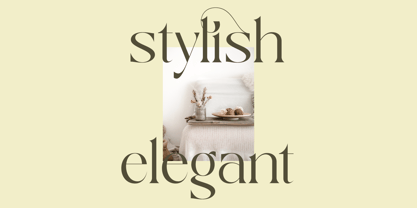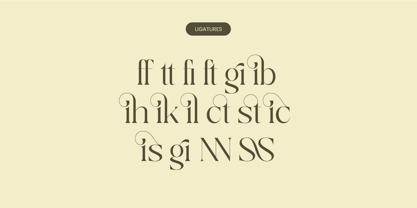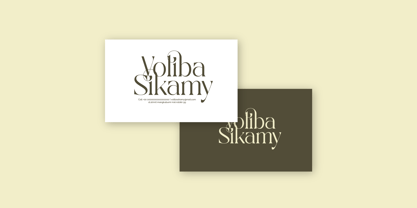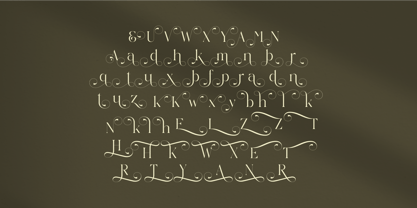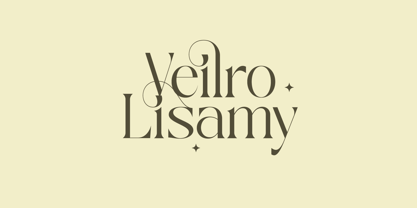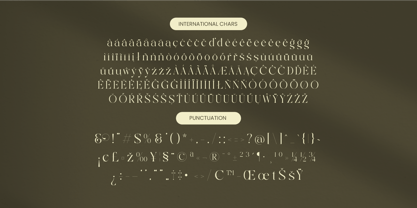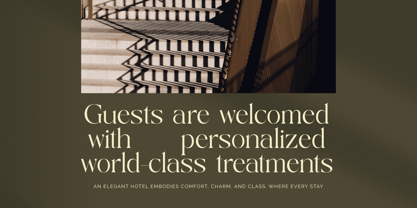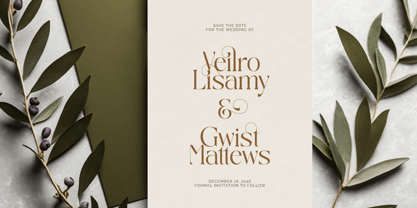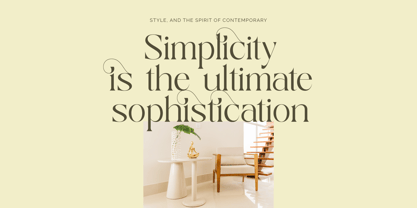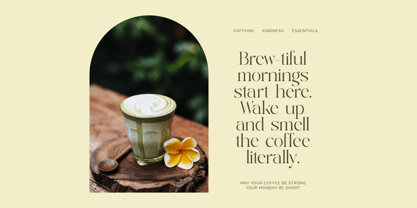
The Qaisar Font Family was designed by Heru Utama Putra and published by Timelesstype Studio. Qaisar contains 2 styles and family package options.
Qaisar - Elegant Serif Font , from Timelesstype .Co , Suitable for any projects such as: logos, branding projects, homeware designs, product packaging, mugs, quotes, posters, shopping bags, t-shirts, book covers, name card, invitation cards, greeting cards, label, photography, watermark, special events, and all your other luxury and beautiful projects that need a Luxury Serif taste.